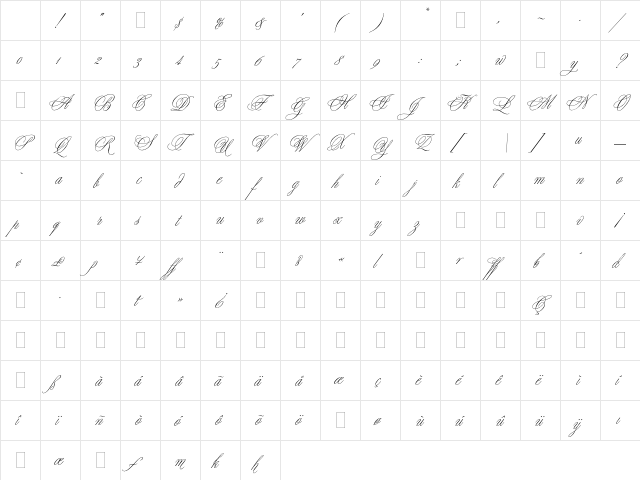
Complete Young Baroque Plain glyph index. Displaying only characters natively supported by Young Baroque Plain font.
Young Baroque is a composed and adaptable typeface that performs quietly and consistently across a wide range of design contexts.